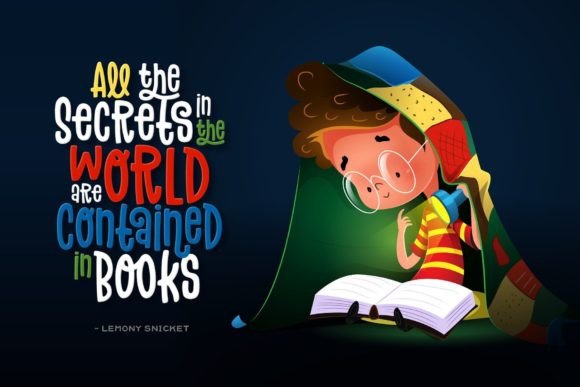
Flowery Font
Flowery is a sweet and cute handwritten font. Fall in love with its incredibly versatile style and use it to create gorgeous wedding invitations, beautiful stationary art, eye-catching social media posts, and much more!This font is PUA encoded, which means you can access all of the glyphs and swashes with ease!